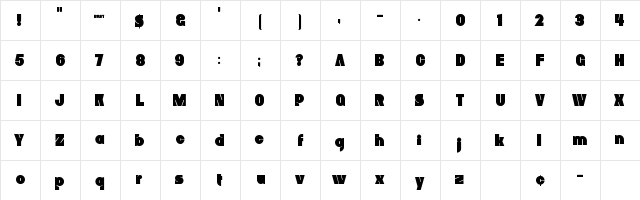
DXS Bust Regular
Design Context for DXS Bust Typeface
DXS Bust is a composed and adaptable typeface that performs quietly and consistently across a wide range of design contexts.
Pro Tip: Pair DXS Bust with a font of contrasting weight or personality to build a more expressive typographic hierarchy.